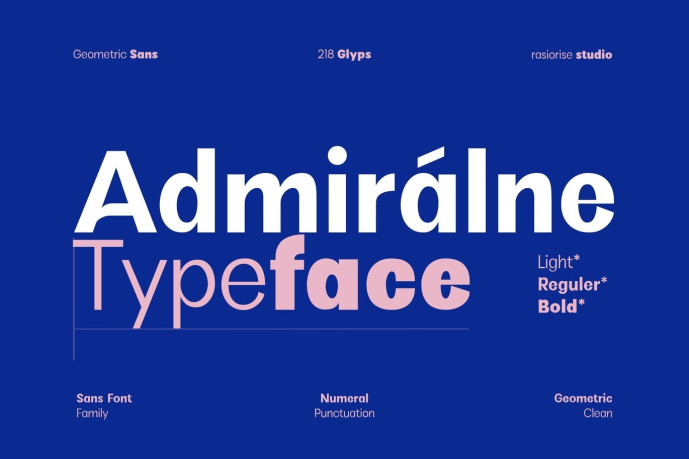
Admiralne – Sans Family Font
Designer: Robby Rasiorise Studio
Admiralne is a clean grotesque sans-serif typeface with a subtle geometric influence, designed to deliver clarity, balance, and versatility. It’s carefully crafted letterforms combine classic grotesque proportions with modern precision, creating a standout visual identity that feels both professional and approachable.
This font perfectly made to be applied especially in logo, and the other various formal forms such as presentation, UI UX, invitations, labels, logos, magazines, books, greeting / wedding cards, packaging, fashion, make up, stationery, novels, labels or any type of advertising purpose.
FEATURES :
Light, Regular and Bold Family Font.
Uppercase and Lowercase.
Numeral, Punctuation & Symbol.